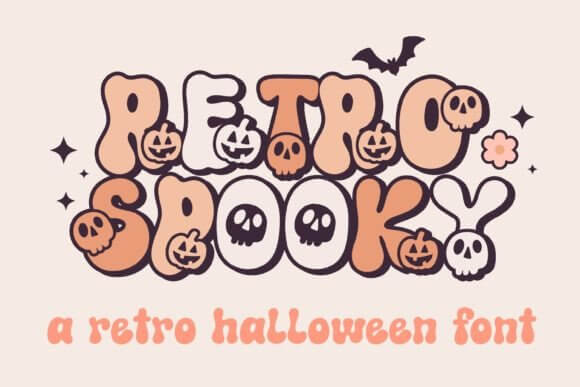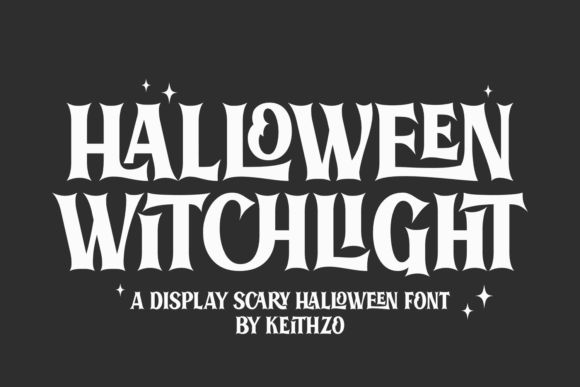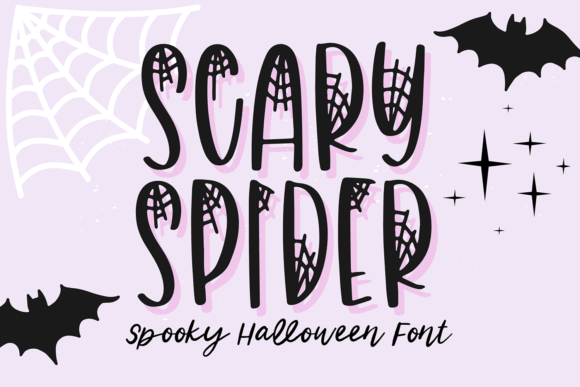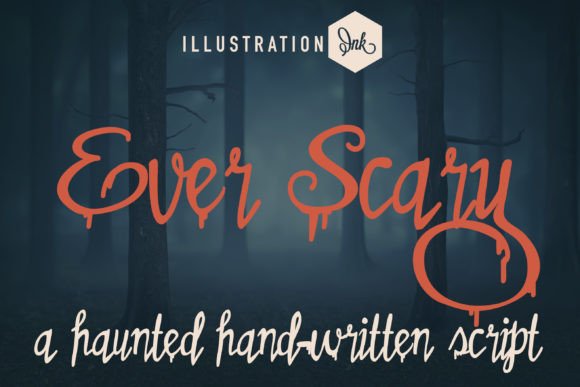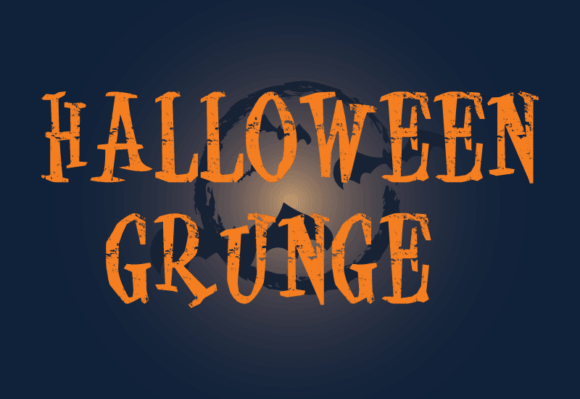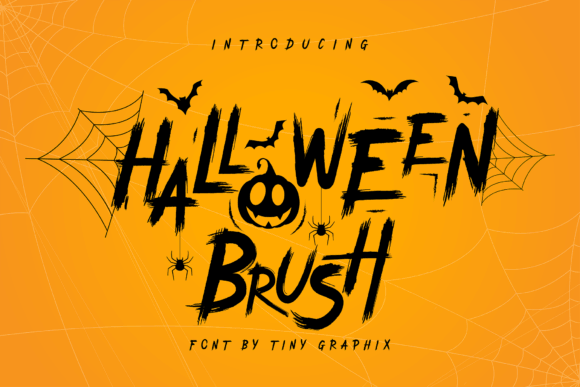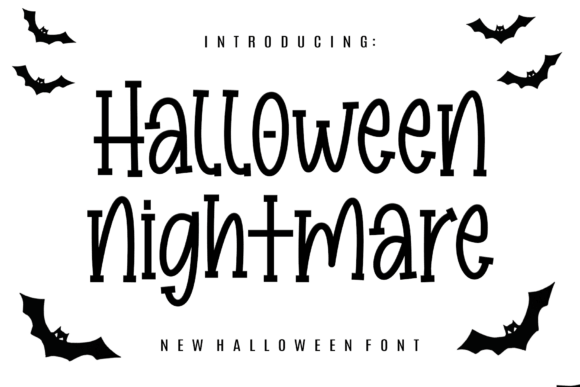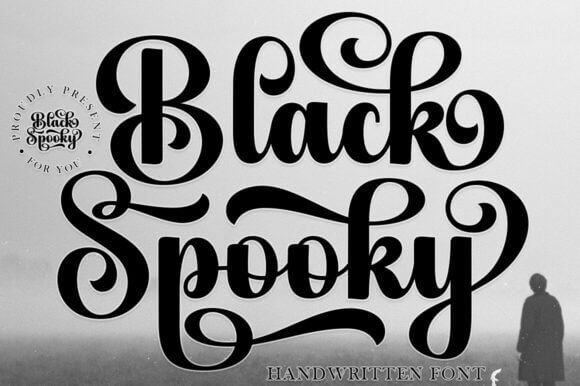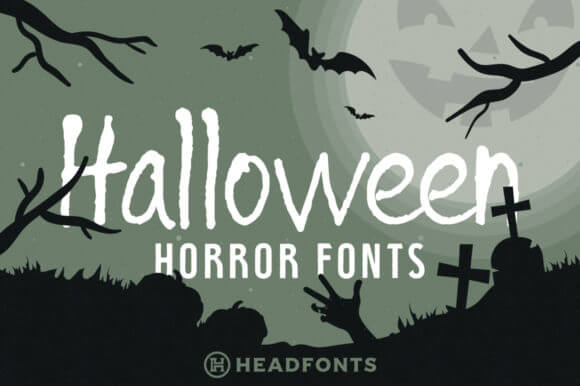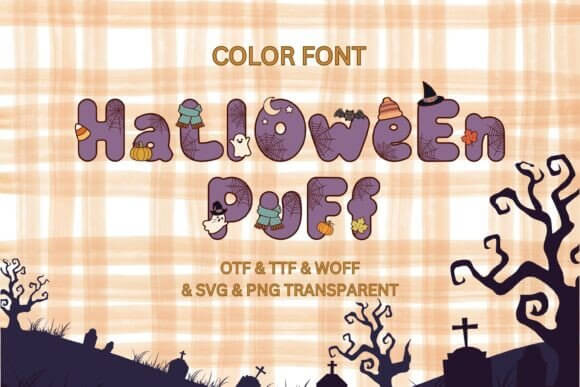
Searching for Halloween fonts free can get messy fast. You open ten tabs, half the type looks cheesy, and the rest screams generic horror knockoff. We built this list to save time and your sanity, with picks that cover spooky lettering, retro font moods, cute ghost titles, grunge textures, and sharp display styles for posters, invites, logos, shirts, and crafts.
A Halloween layout usually lives or dies by the headline. Wrong type, the whole design feels flat. Right type, and even a simple black-orange palette starts looking smart, moody, and expensive. From free printable Halloween fonts to layered font combos and handwriting fonts with creepy typography, the picks below feel usable, not random, so you can move from idea to finished graphic without the usual nonsense.
Retro Spooky For Vintage Halloween Posters
Retro Spooky hits that weird sweet spot between camp and eerie. The curves feel vintage, a little warped, a little groovy, which makes this retro display font perfect for poster titles, shirt graphics, and party signs that need personality without blood drips everywhere. We think it looks best when you keep the subtext plain.
Big shadows, cream-on-orange color, maybe a grain texture . . . that’s the move.
Where This Font Works Best
- Vintage Event Posters – Sell retro horror nights and themed screenings fast.
- Sticker Pack Covers – Add punch to seasonal digital bundles.
- Shop Window Decals – Make pop-up promos readable from a distance.
- Photo Booth Signs – Keep party props fun, bold, and easy to spot.
Halloween Witchlight For Witchy Branding
Halloween Witchlight leans magical instead of messy. The forms feel mystical and polished, so this witchy logo text works for candle labels, tarot branding, fall packaging, and moody promo art. If your project wants moonlit charm more than jump scares, this one earns its spot fast.
Pair it with stars, tiny sparkles, and a quiet serif body font. Easy win.
Where This Font Works Best
- Spell Jar Branding – Build a memorable look for handmade shops.
- Candle Label Systems – Give wax melts and candles a mystical edge.
- Tarot Social Headers – Dress up content without losing clarity.
- Book Box Inserts – Add magic to seasonal packaging cards.
Scary Spider For Creepy Web Headlines
Scary Spider goes straight for the classic creepy vibe, and honestly, good. The shapes suggest webs and tension without wrecking readability, which makes this creepy web headlines option strong for haunted event flyers, stream thumbnails, and spooky website banners. You still get drama, but people can read it on a phone.
Use it big. Tiny sizes kill the effect.
Where This Font Works Best
- Haunted Maze Tickets – Push the creepy mood before guests even enter.
- Escape Room Teasers – Build suspense in small promo spaces.
- Gamer Stream Panels – Fit spooky overlays and event art.
- Halloween Web Banners – Add seasonal bite to landing pages.
Ever Scary For Haunted Quote Graphics
Ever Scary feels scratchy, moody, and personal, like someone scrawled a warning on the wall five minutes before the lights went out. That rough energy turns it into solid haunted hand-lettering for quote graphics, dark stationery, and boutique Halloween promos that need edge, not polish.
We’d keep the palette stripped back. Black, bone, rust. Done.
Where This Font Works Best
- Mood Board Covers – Set the tone for seasonal concept decks.
- Quote Art Prints – Turn short phrases into eerie wall decor.
- Boutique Promo Cards – Add texture to small retail handouts.
- Seasonal Email Headers – Give campaigns a handmade shiver.
Halloween Grunge For Rough Horror Layouts
Halloween Grunge looks like it fought the paper and won. The texture feels dirty in the right way, so this distressed horror type shines on bar posters, band merch, haunted house ads, and gritty social promos. Clean layouts make it pop more, weirdly enough, because the rough edges get room to bite.
Don’t crowd it. Let the damage show.
Where This Font Works Best
- Distressed Album Art – Push a rough music vibe fast.
- Metal Merch Graphics – Add grit to tees and sticker drops.
- Bar Menu Specials – Sell themed drinks with attitude.
- Haunted House Ads – Bring raw texture to promo posters.
Halloween Brush For Hand-Painted October Art
Halloween Brush brings motion. The strokes feel fast and human, which helps this brush script Halloween style land on decals, mugs, classroom crafts, and handmade tags without looking stiff. It plays nice with pumpkins, leaves, and sketchy doodles, so DIY sellers get loads of mileage here.
FYI, a plain sans underneath keeps it readable.
Where This Font Works Best
- DIY Tumbler Decals – Add seasonal flair to custom drinkware.
- Costume Maker Tags – Give packaging a handmade feel.
- Classroom Bulletin Titles – Keep school decor lively and warm.